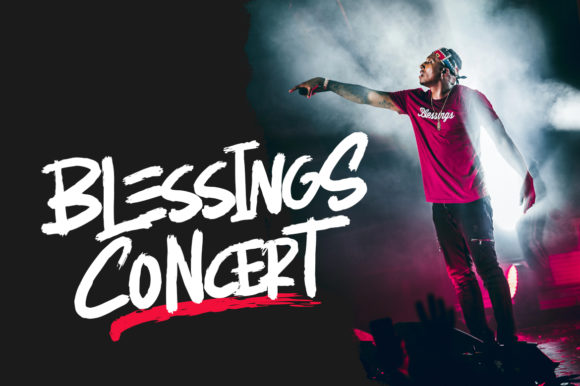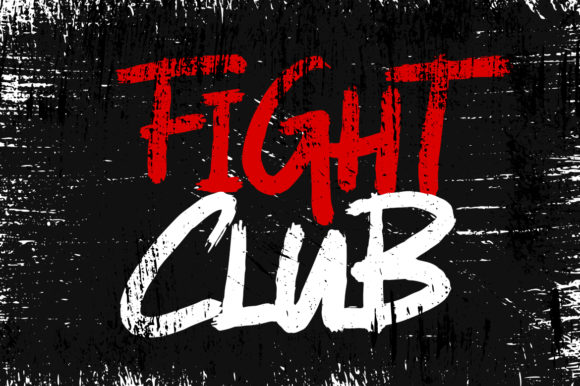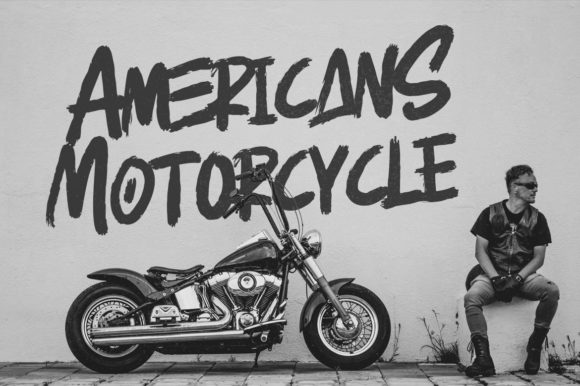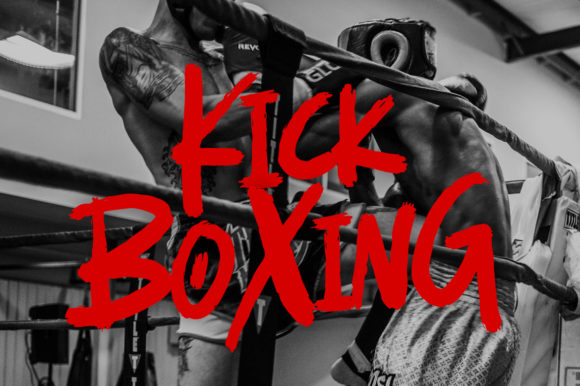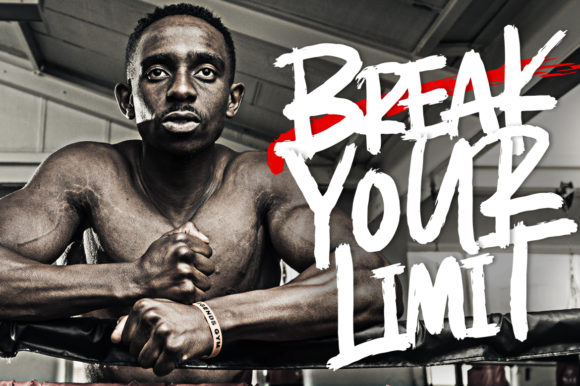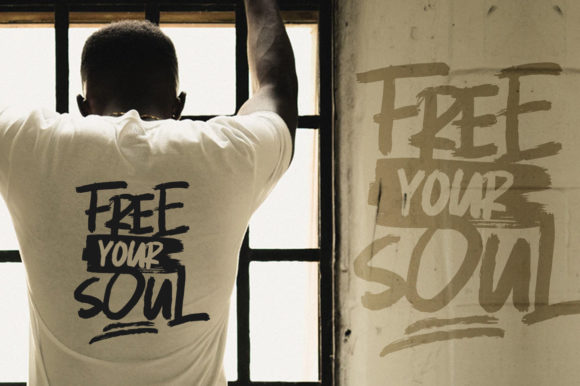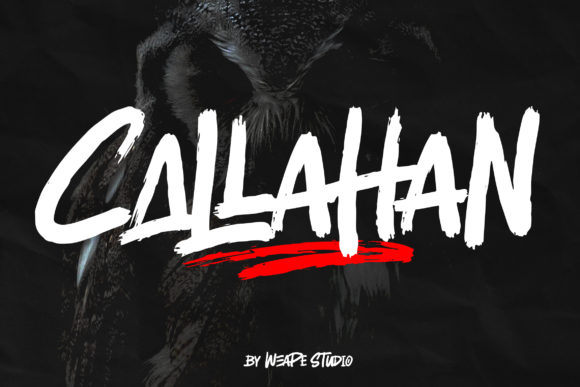
Introducing Callahan Font: Elevate Your Designs with Natural Dry Brush Strokes
Are you a designer or crafter looking for a unique and stylish font to take your projects to the next level? Look no further than Callahan Font, a stunning brush display font that features natural dry brush strokes. With its rustic charm and elegant feel, Callahan is the perfect addition to a wide range of design projects, from branding and headings to wedding designs, invitations, signatures, logos, labels, and more!
The Characteristics of Callahan Font
Callahan Font is a brush display font that boasts natural dry brush strokes, giving it a distinctive and authentic look. The font features:
- Natural and Organic Look: Callahan’s dry brush strokes give it a natural, organic look that’s perfect for designs that require a touch of rustic charm.
- Elegant and Sophisticated: Despite its rustic feel, Callahan is an elegant and sophisticated font that’s suitable for high-end designs and projects.
- Highly Versatile: Callahan can be used for a wide range of design projects, from branding and advertising to wedding designs and craft projects.
- Easy to Read: Despite its decorative nature, Callahan is surprisingly easy to read, making it perfect for use in headings, titles, and other display text.
Uses for Callahan Font
Callahan Font is an incredibly versatile font that can be used for a wide range of design projects, including:
- Branding and Logo Design: Callahan’s unique look makes it perfect for use in branding and logo design, helping to create a memorable and distinctive brand identity.
- Wedding Designs: Callahan’s elegant and sophisticated feel makes it perfect for use in wedding designs, including invitations, programs, and other wedding materials.
- Headings and Titles: Callahan’s decorative nature makes it perfect for use in headings and titles, adding a touch of style and sophistication to any design.
- Invitations and Stationery: Callahan’s natural, organic look makes it perfect for use in invitations and stationery, adding a touch of rustic charm to any design.
- Signatures and Labels: Callahan’s elegant feel makes it perfect for use in signatures and labels, adding a touch of sophistication to any design.
Why Choose Callahan Font?
So why choose Callahan Font for your design projects? Here are just a few reasons:
- Unique and Distinctive: Callahan’s natural dry brush strokes make it a unique and distinctive font that’s sure to stand out in any design.
- High-Quality Design: Callahan is a high-quality font that’s been carefully designed to ensure that it looks great in any design.
- Easily Customizable: Callahan is easily customizable, allowing you to adjust the font to suit your design needs.
Tips for Using Callahan Font
Here are a few tips for using Callahan Font in your design projects:
- Use it as a Display Font: Callahan is perfect for use as a display font, adding a touch of style and sophistication to any design.
- Pair it with Other Fonts: Callahan can be paired with other fonts to create a unique and interesting design.
- Experiment with Different Colors: Callahan looks great in a range of different colors, so don’t be afraid to experiment and find the perfect color for your design.
- Use it to Add Emphasis: Callahan can be used to add emphasis to certain parts of a design, drawing the viewer’s eye to important information.
Callahan Font is a stunning brush display font that features natural dry brush strokes. With its rustic charm and elegant feel, Callahan is the perfect addition to a wide range of design projects, from branding and headings to wedding designs, invitations, signatures, logos, labels, and more! Whether you’re a designer or crafter, Callahan is sure to become a favorite font in your collection.